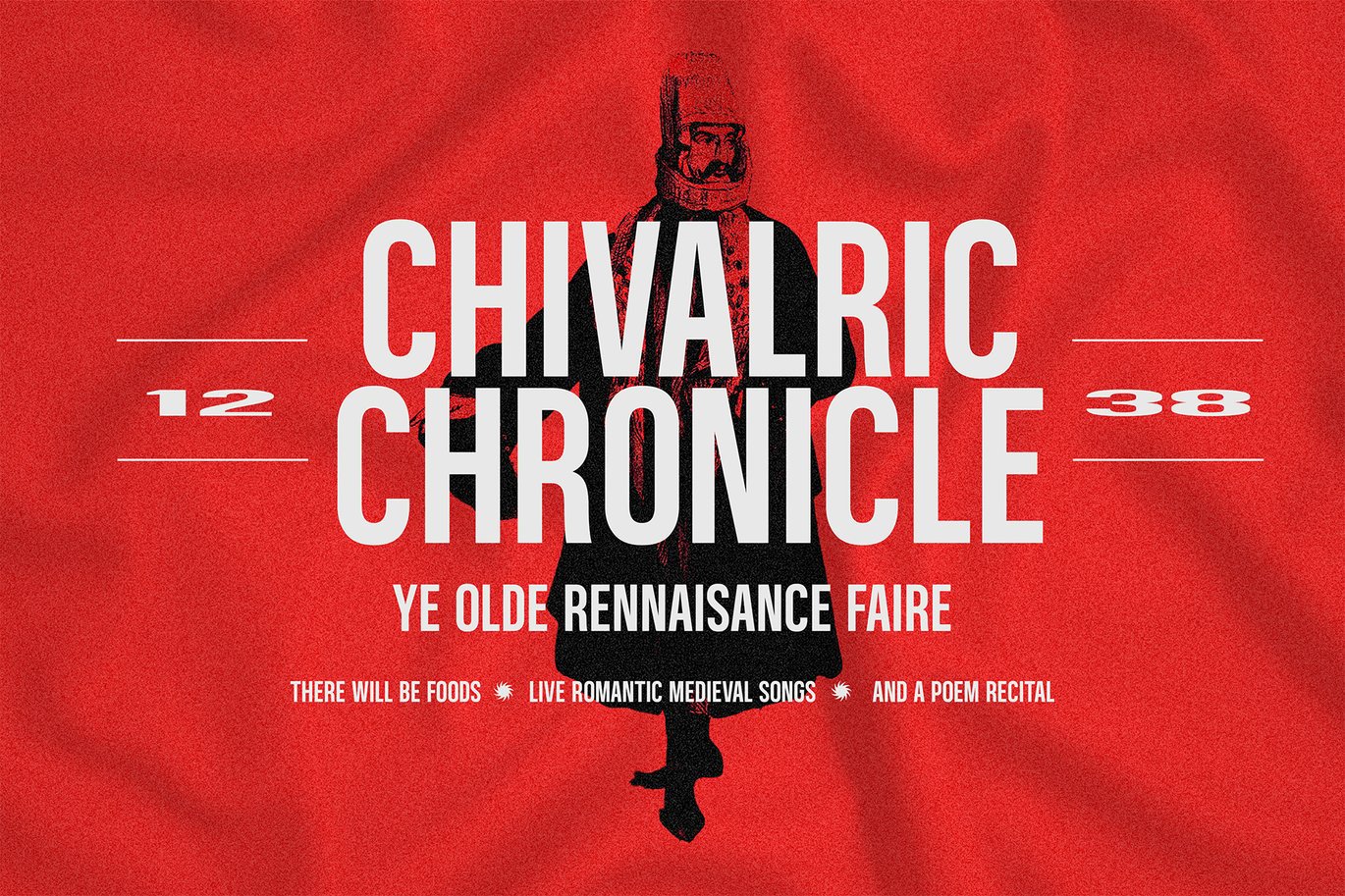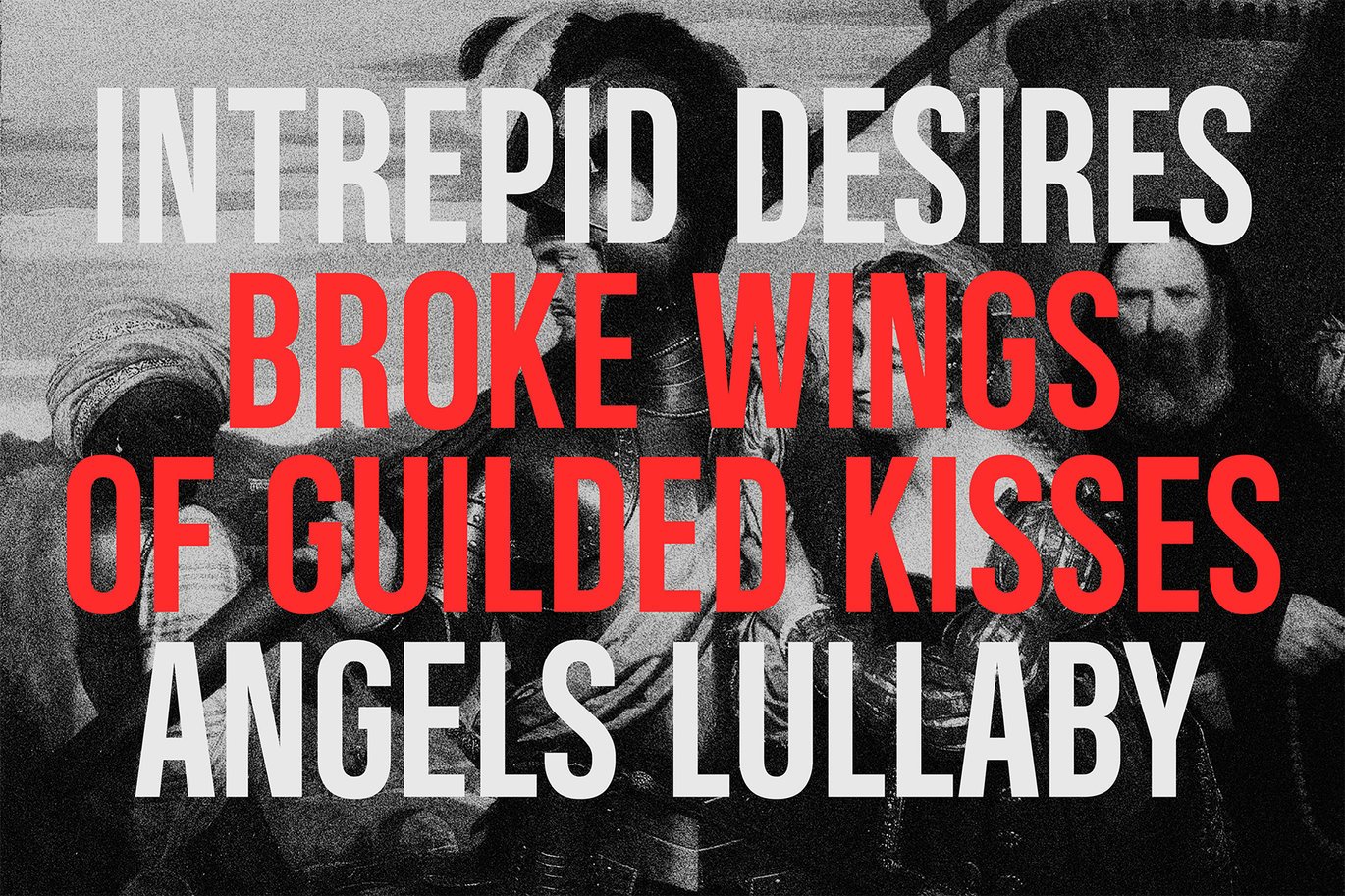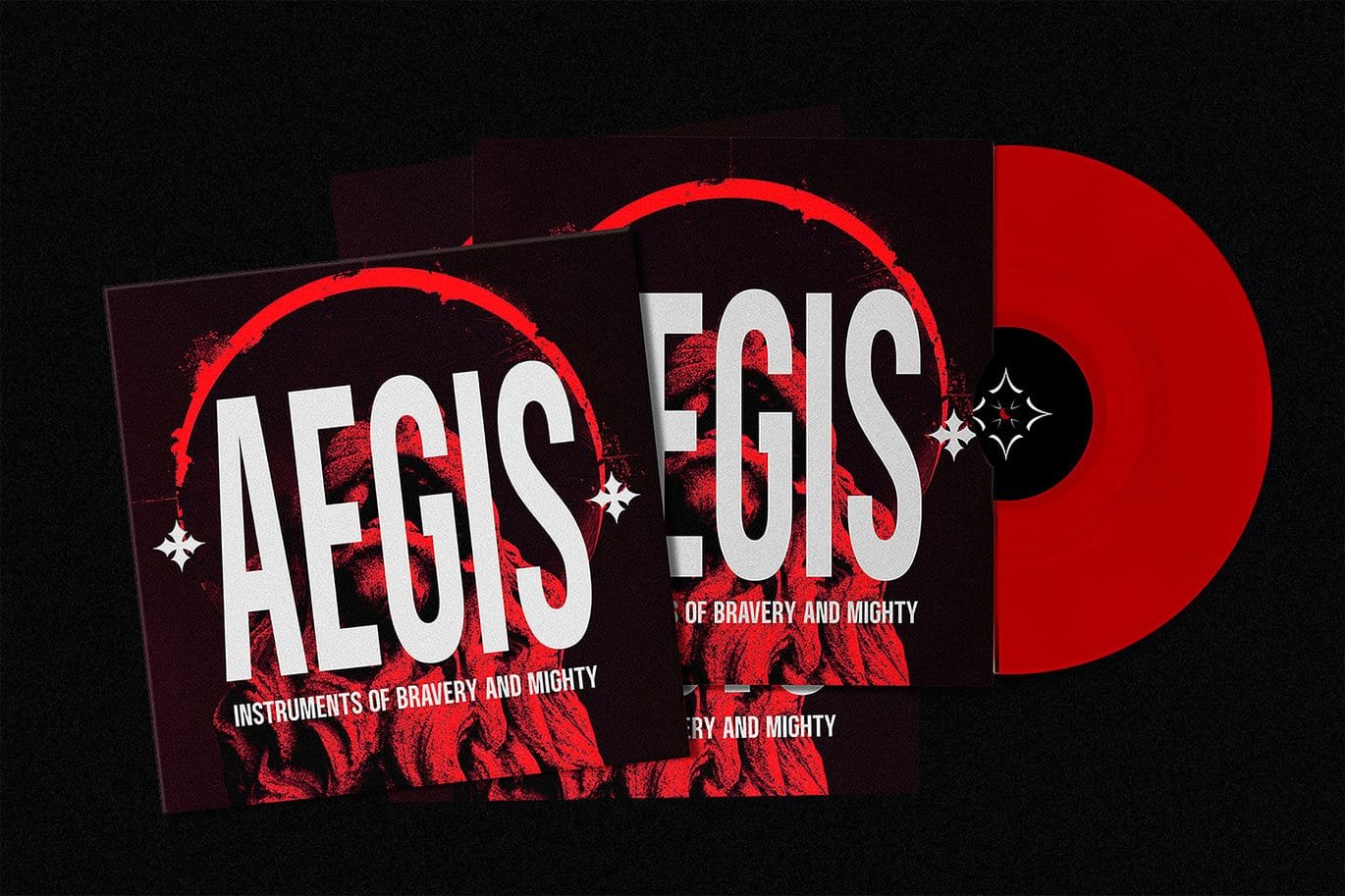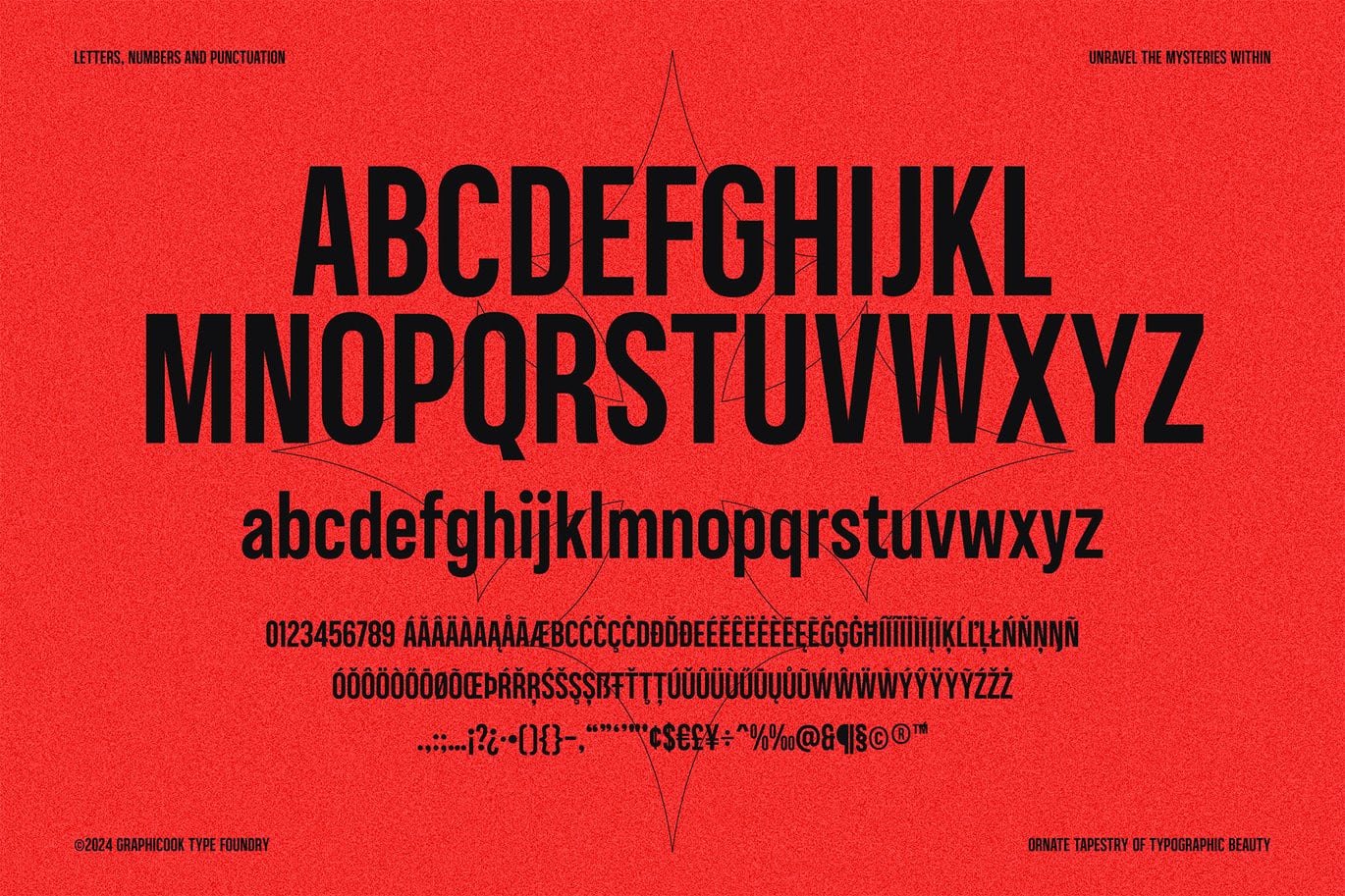
Conthic Font
Conthic is a striking Gothic Condensed typeface that gives a touch of grunge style to your designs. With its condensed form, Conthic exudes a powerful and bold presence, capturing attention and effortlessly conveying a sense of strength and impact.
Conthic is perfect for headlines, logotypes, magazines, packaging, quotes, movies, games, cover albums, book covers, and flyers, it's a perfect solution for creating eye-catching designs that stand out in any context.